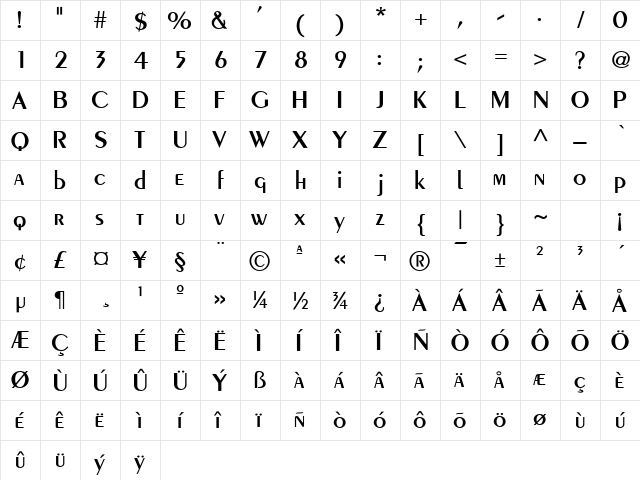
Penoir Normal
Design Context for Penoir Typeface
Penoir takes a measured approach to typography — its balanced proportions and neutral character make it a reliable workhorse for both digital and print work.